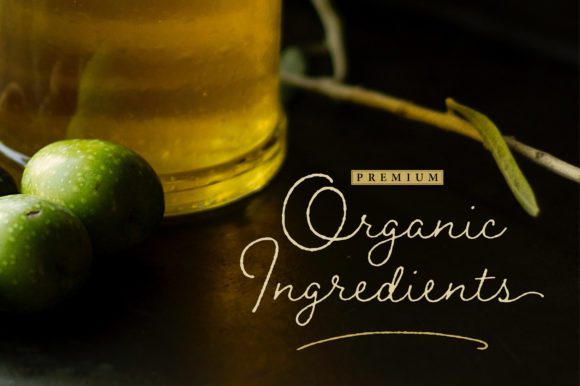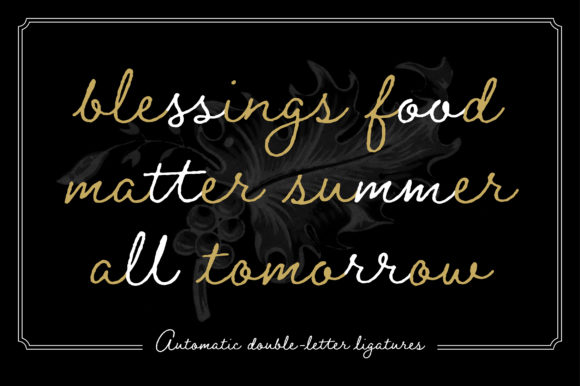
Braisetto Font
db-ku.com - Script & Handwritten -- Braisetto is a handwritten, signature font family with five weights, multiple alternates, and natural ligatures. Inky and expressive yet readable and functional, this typeface is designed to look personal and be useful in a variety of applications.